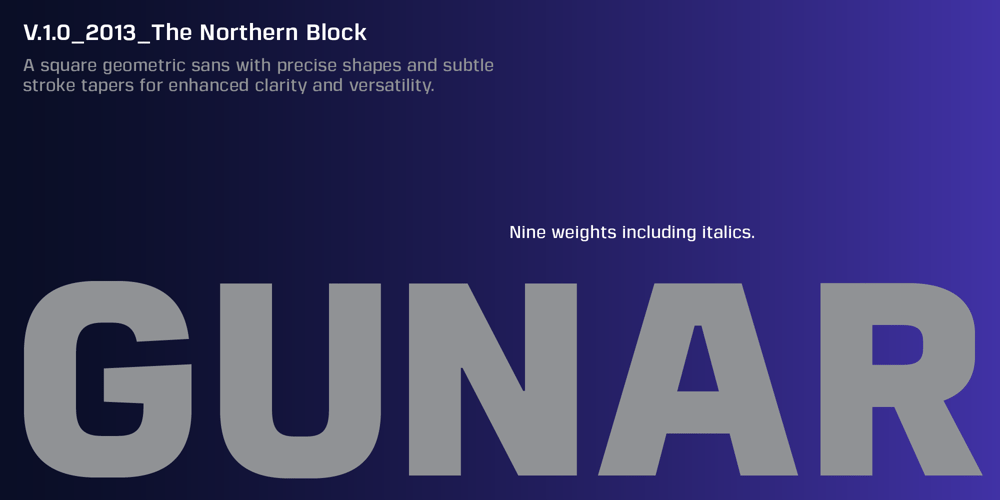
Gunar Font Family was designed by Jonathan Hill and published by The Northern Block. Gunar contains 18 styles and family package options. A square geometric sans with a precise, chiselled aesthetic. Its sharp angles and smooth curves are refined by subtle stroke tapering at the stem junctions, reducing rigidity and adding a touch of sophistication. A large x-height and neutral width ensure excellent legibility, even at small sizes, making it a versatile choice for both print and digital applications. The structured yet balanced rectangular forms give it a modern, technical feel, ideal for branding, user interfaces, and editorial design. The typeface includes nine weights with italics, 550 characters, alternative forms for a, e, g, and y, five numeral variations, meticulously crafted kerning, and a comprehensive set of OpenType features.